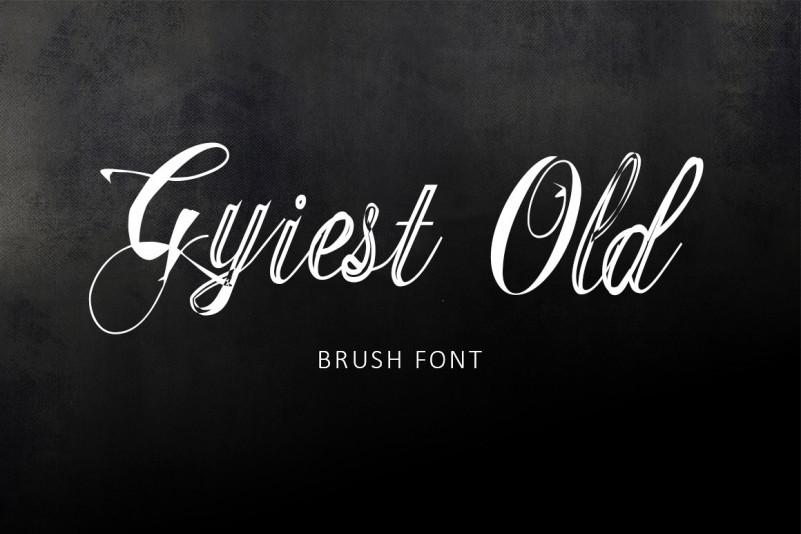
Gyiest Old Brush Font
Hi there! Introducing Gyiest Old. It is designed and shared by Malre. Gyiest Brush is handmade signature style font with stunning characters. Gyiest Old brushed script font for so many awesome uses such as quotes, instagram, advertising, logos, invites, weddings, and much much more.